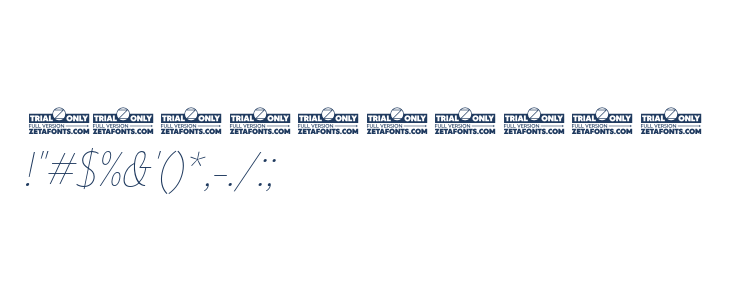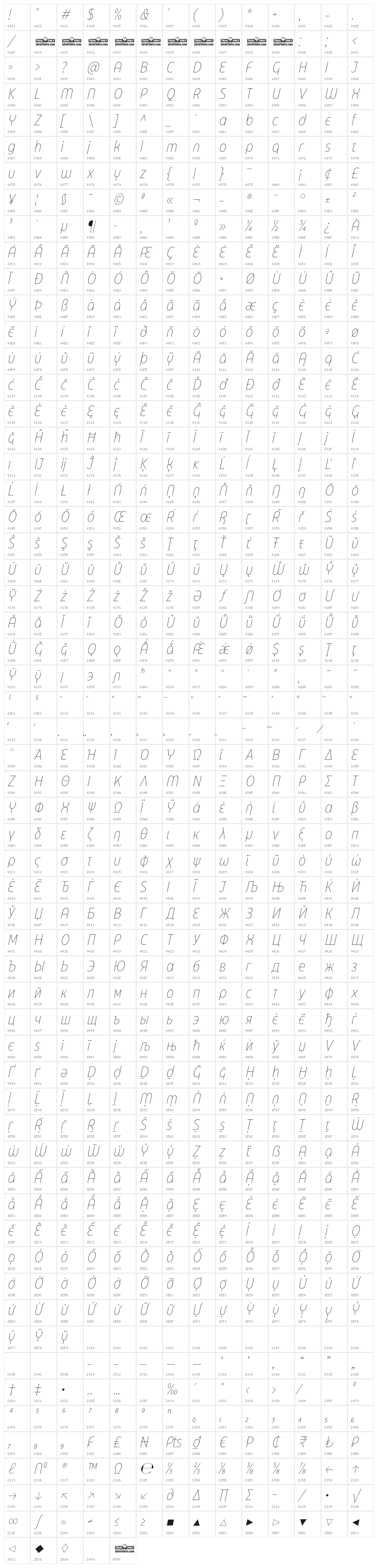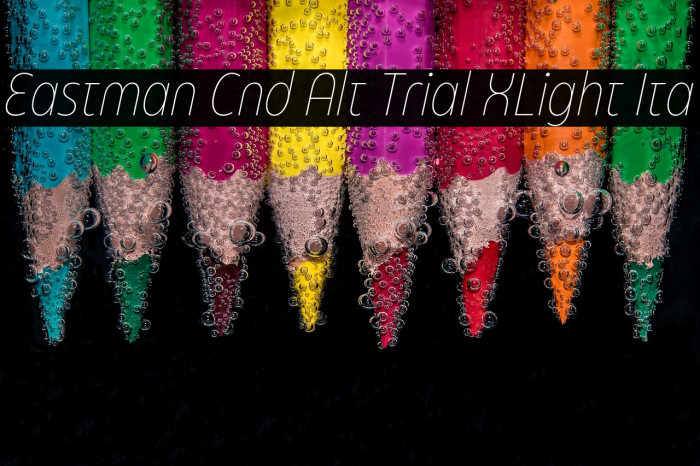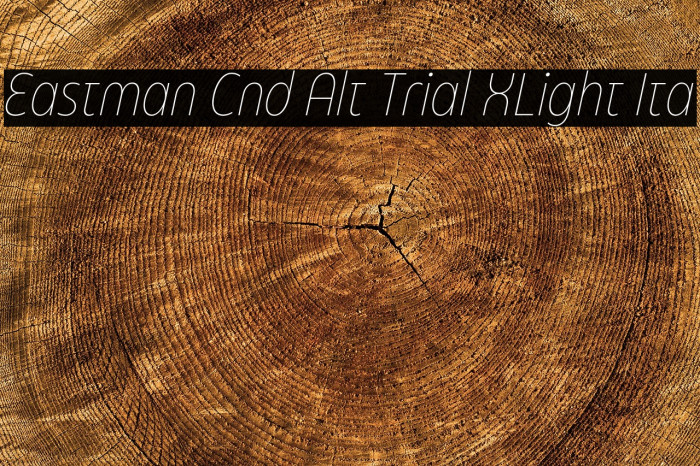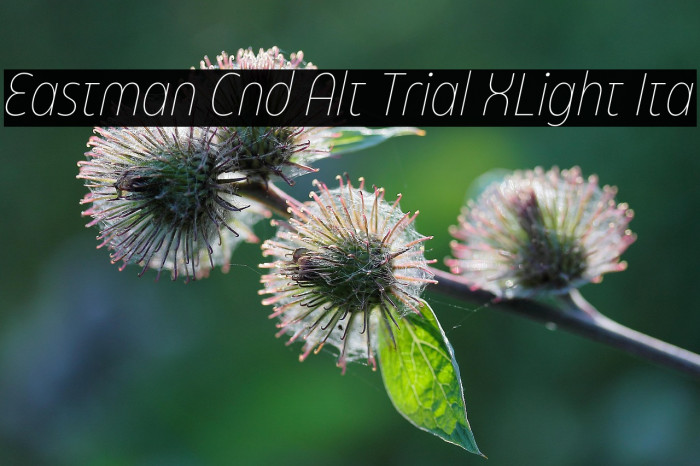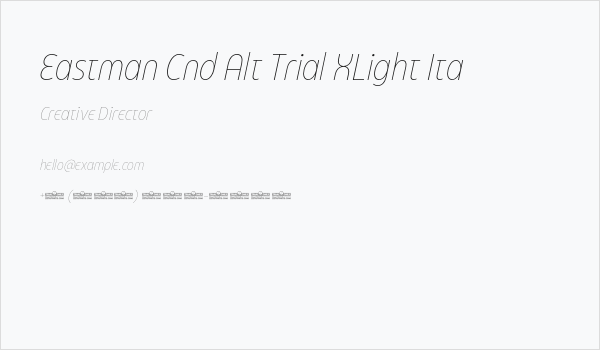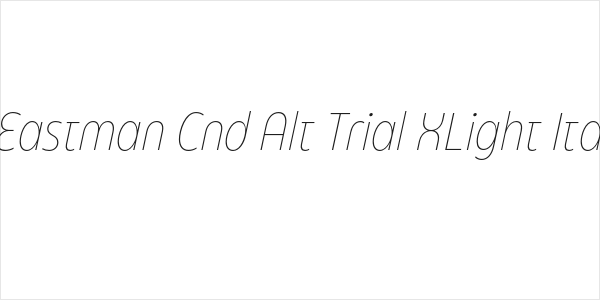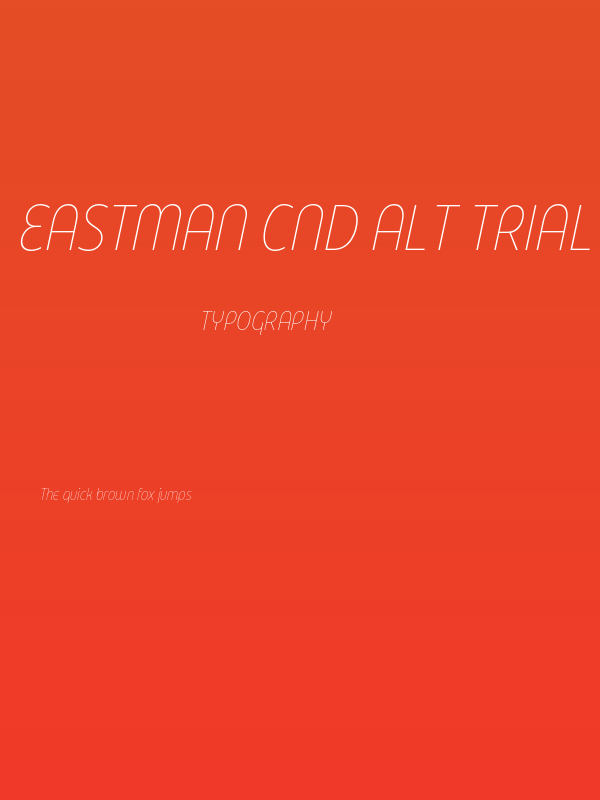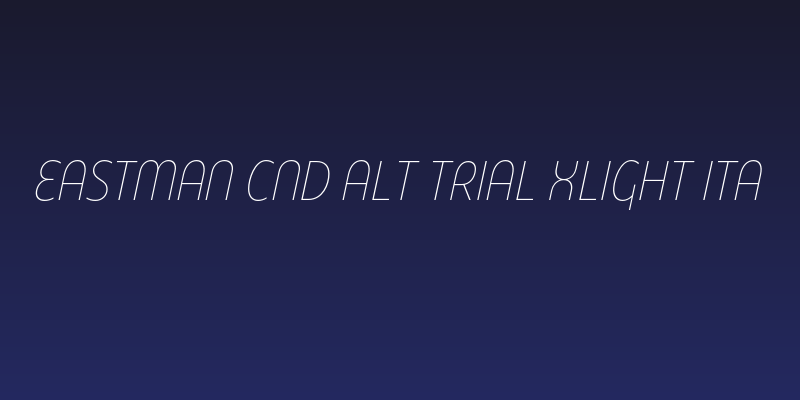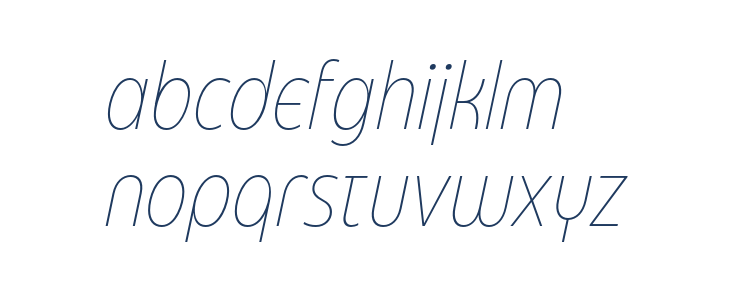
Eastman Cnd Alt Trial XLight Ita Font
Eastman Cnd Alt Trial XLight Ita Description
This font features a sleek, modern design with a condensed and italicized style. The characters are elongated with a consistent stroke width, giving it an elegant and sophisticated appearance. The uppercase and lowercase letters are well-balanced, maintaining a uniform height that enhances readability. The numerals and special characters are designed to complement the alphabet, ensuring a cohesive look across all text. Its minimalistic and clean lines make it suitable for contemporary design projects, where a touch of elegance is desired.
| Proposed Projects | Ideal for fashion magazines, modern branding, elegant invitations, and minimalist websites. |